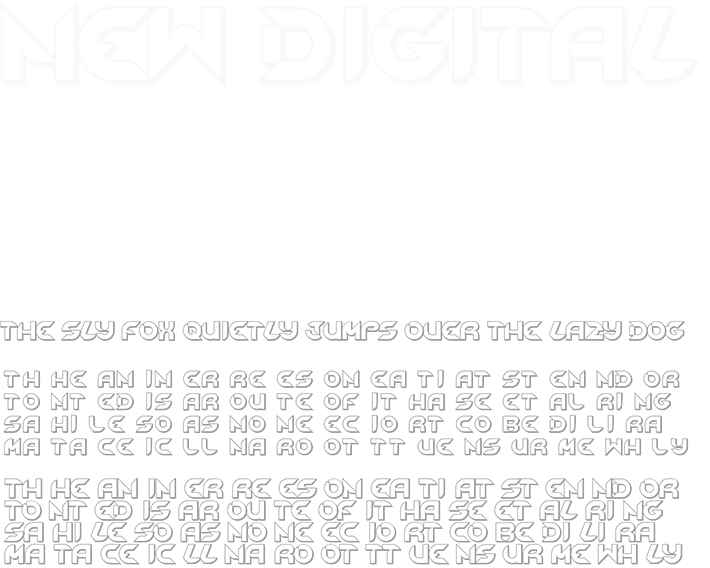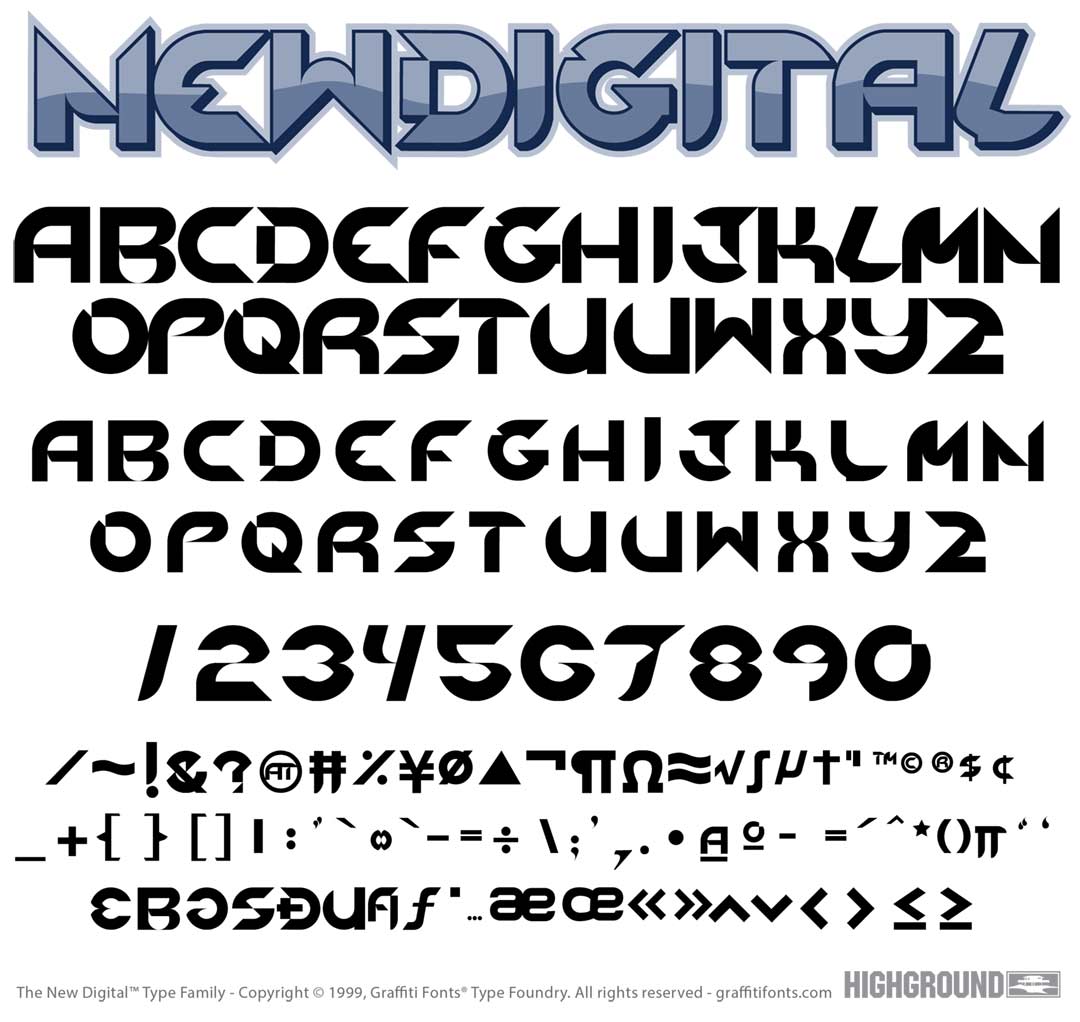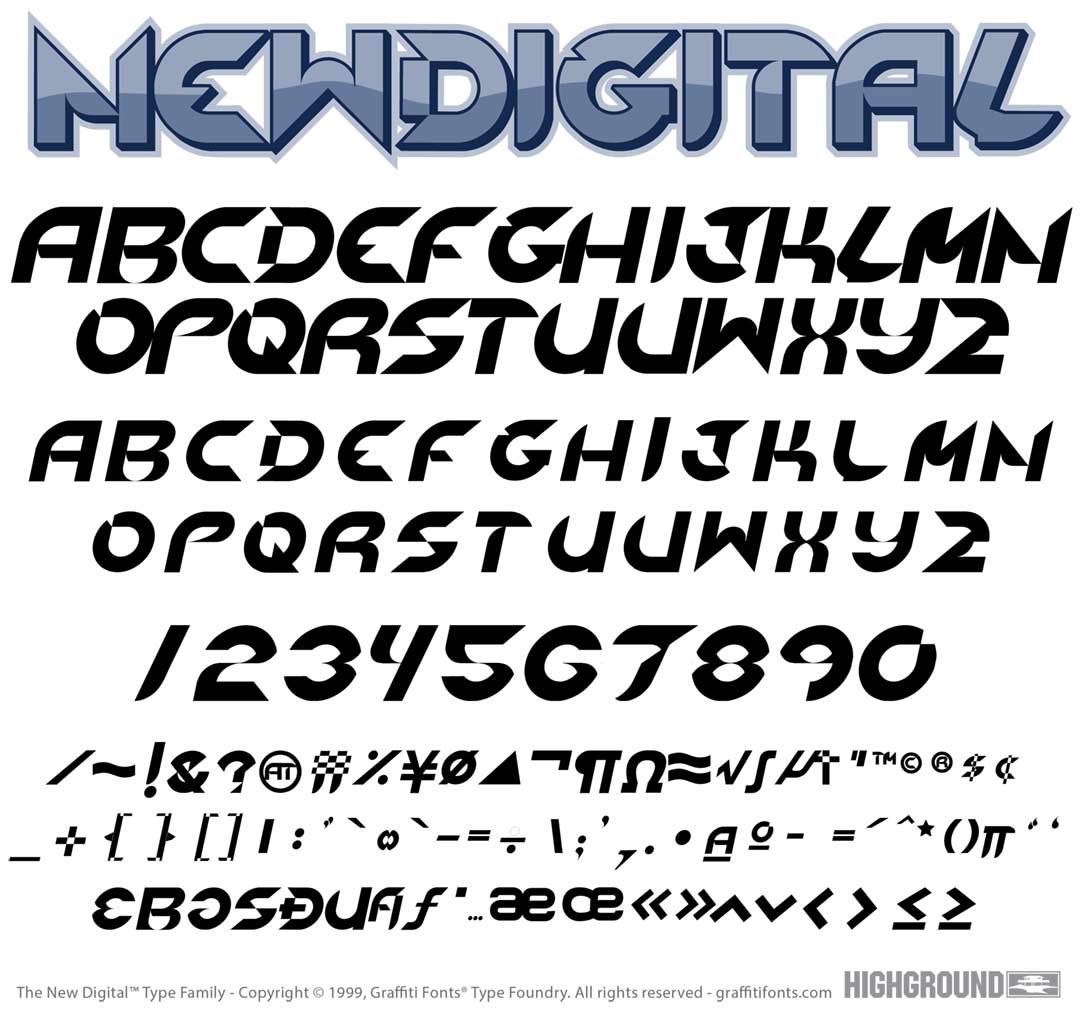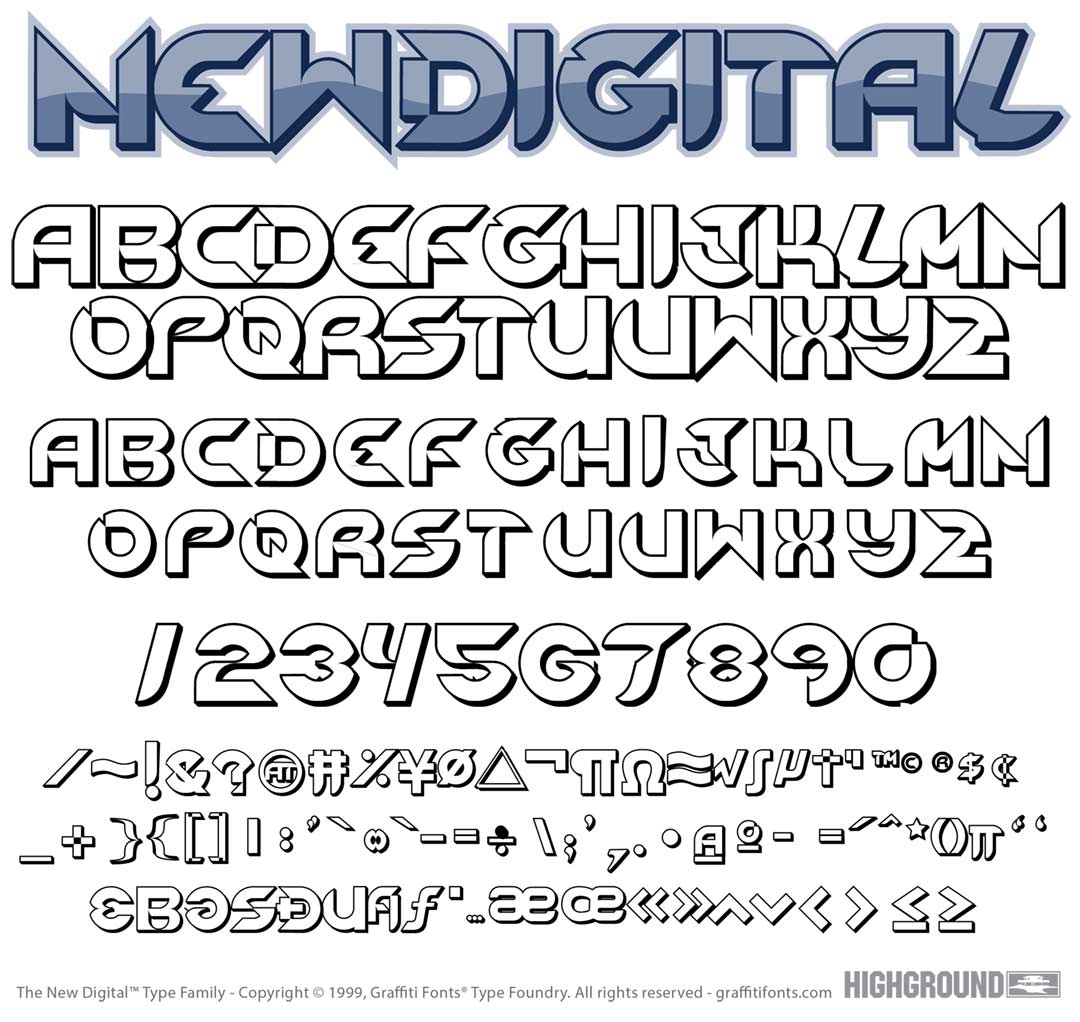
New Digital Font
New Digital Title Image
New Digital Graffiti Alphabet
New Digital Graffiti Font Family
The 222 characters of the "New Digital" typeface were created through the use of an ancient geometric form used to express the golden ratio. We named it "New Digital" because in development the drawings resembled some sort of space-age digital clock. Three styles are included; regular, italic & outline.